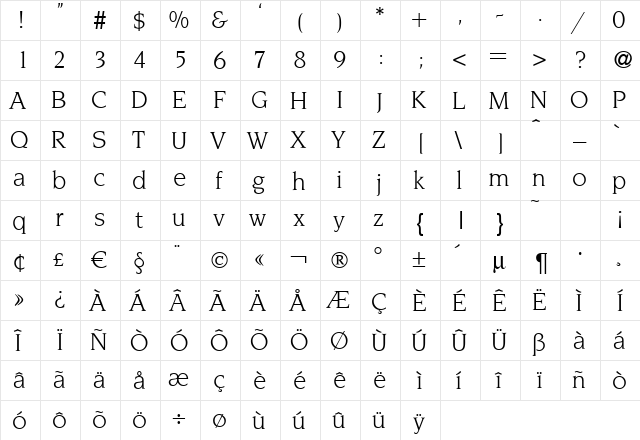
Novelty Regular
Design Context for Novelty Typeface
Novelty takes a measured approach to typography — its balanced proportions and neutral character make it a reliable workhorse for both digital and print work.
Pro Tip: Use Novelty in both headline and body roles to test its range before committing to a single application.